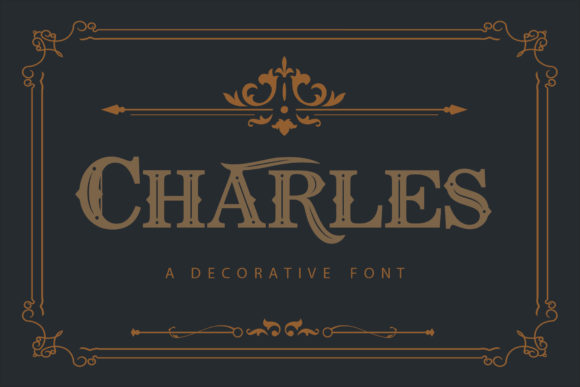
Journey through time with Charles Font, a serif font with an audacious Victorian soul. Travel back to the captivating era of the 1970s, where every design exuded boldness and individuality. Unleash your creativity with this font, meticulously crafted to evoke the essence of vintage and retro aesthetics.
Charles Font's striking personality stems from its strong serifs and confident strokes, reminiscent of the grandeur of Victorian typography. Each character carries a unique charm, adding depth and texture to your designs. Let your words dance upon the page, captivating your audience with their timeless elegance and undeniable presence.
Step into a world where nostalgia and modernity collide, where Charles Font effortlessly blends the best of both worlds. Create captivating print ads that transport your customers to a bygone era, evoking a sense of familiarity and intrigue. Elevate your branding with logos and packaging that exude a timeless appeal, leaving an enduring impression on every beholder.
With Charles Font, storytelling becomes an art form. Craft brochures and flyers that immerse readers in your narratives, engaging them with every word and image. Let your designs resonate with audiences on a deeper level, creating a lasting emotional connection that fosters loyalty and advocacy.
Unleash your inner artist and experiment with Charles Font's versatility. Create stunning posters and social media graphics that command attention and ignite imaginations. Let your message shine through, amplified by this font's innate ability to captivate and inspire.